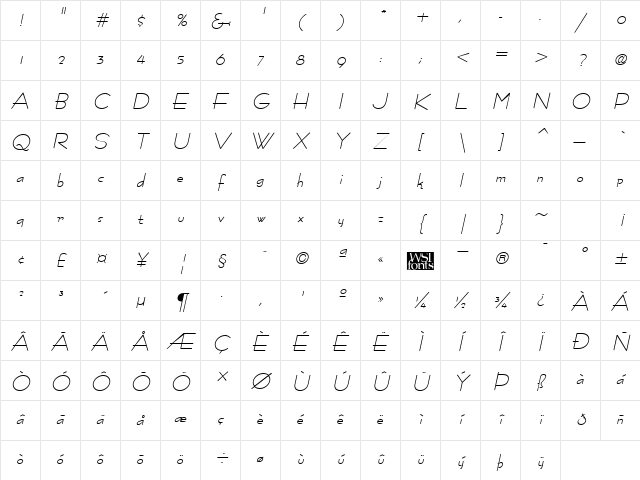
FastracFashion Italic
Complete FastracFashion Italic glyph index. Displaying only characters natively supported by FastracFashion Italic font.
Design Context for FastracFashion
FastracFashion is a composed and adaptable typeface that performs quietly and consistently across a wide range of design contexts. The slanted form adds forward momentum and visual energy.
Pro Tip: Use FastracFashion for emphasis, pull quotes, and subheadings where its slanted energy can add rhythm to the layout.